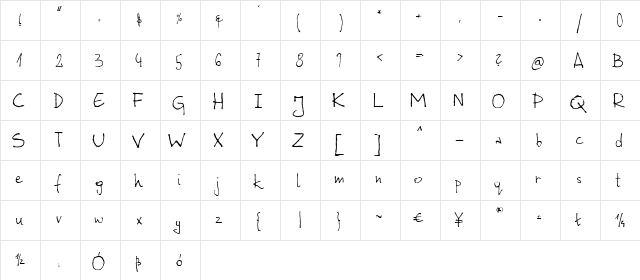
Hajduczek Hajduczek
| Foundry | Leszek So? |
| Designer | Leszek So? |
Design Context for Hajduczek Typeface
Hajduczek is a composed and adaptable typeface that performs quietly and consistently across a wide range of design contexts.